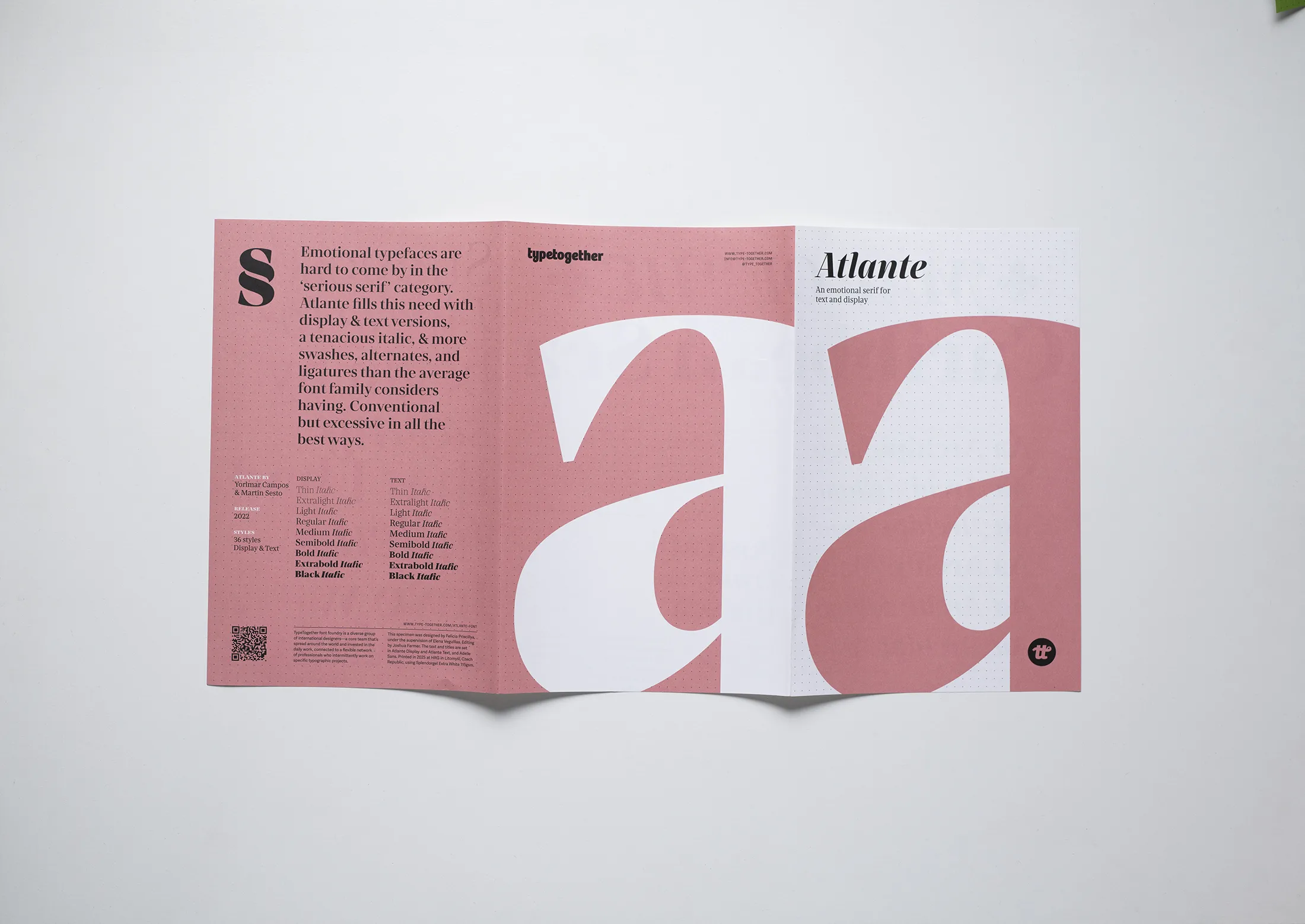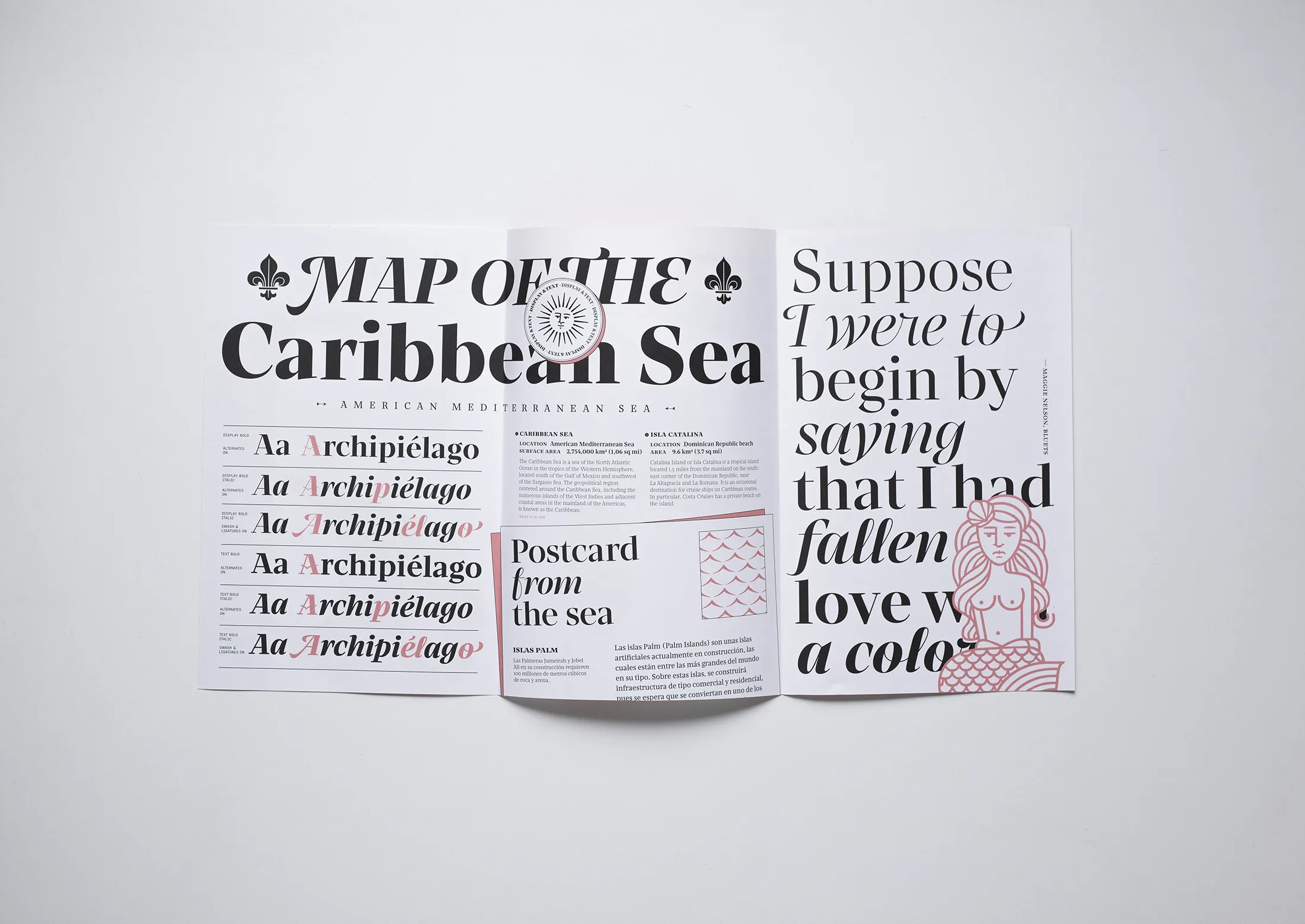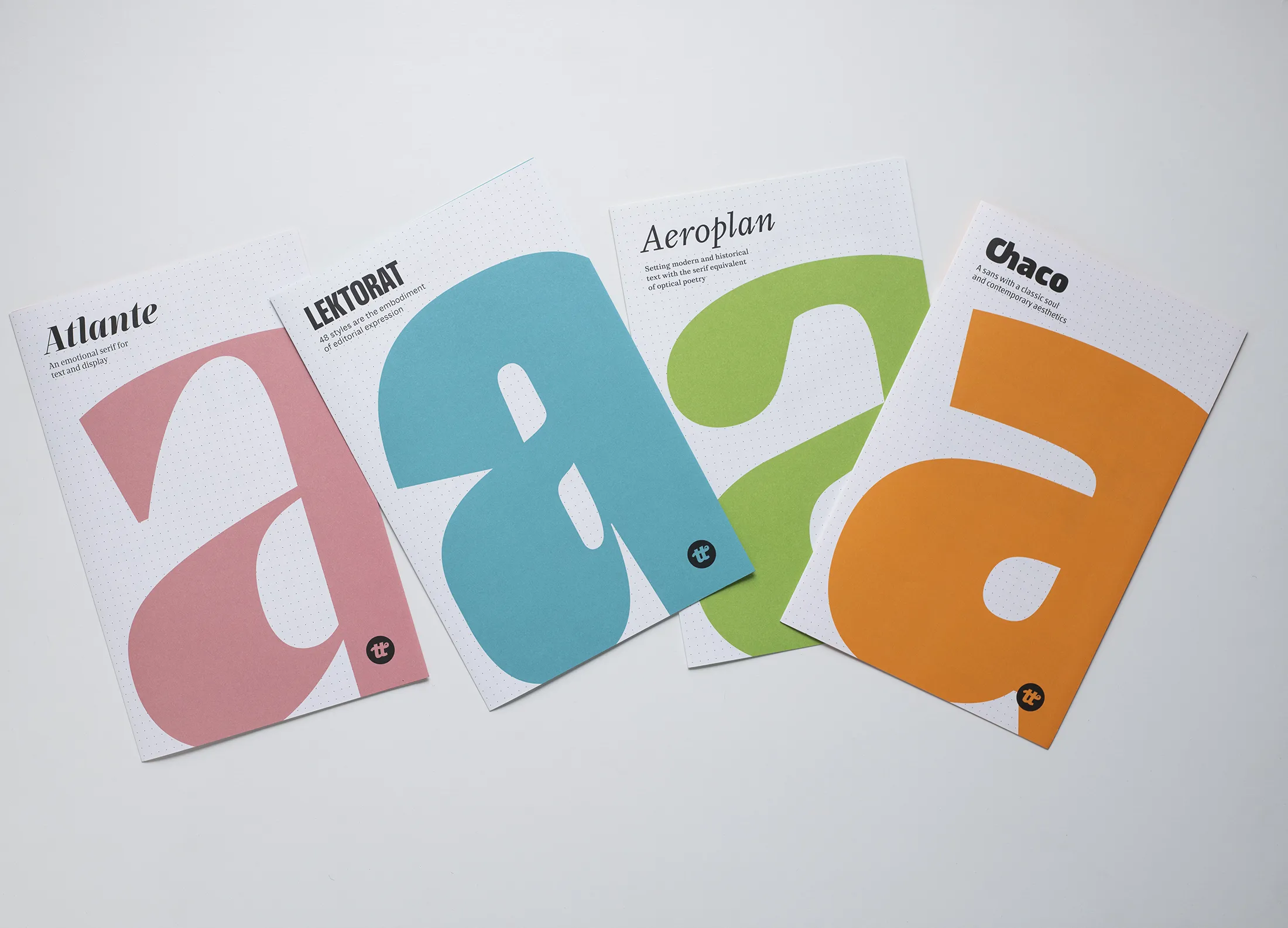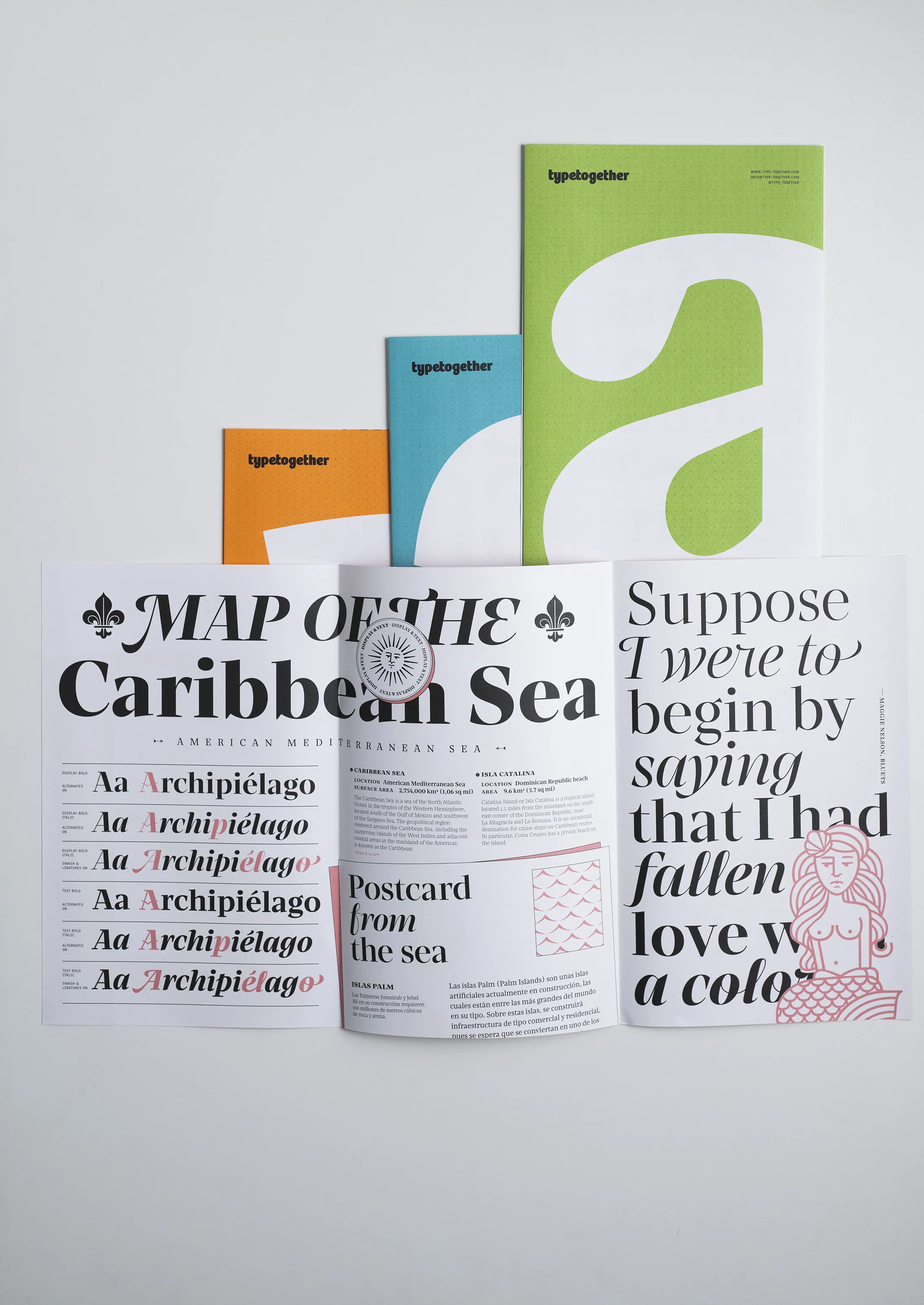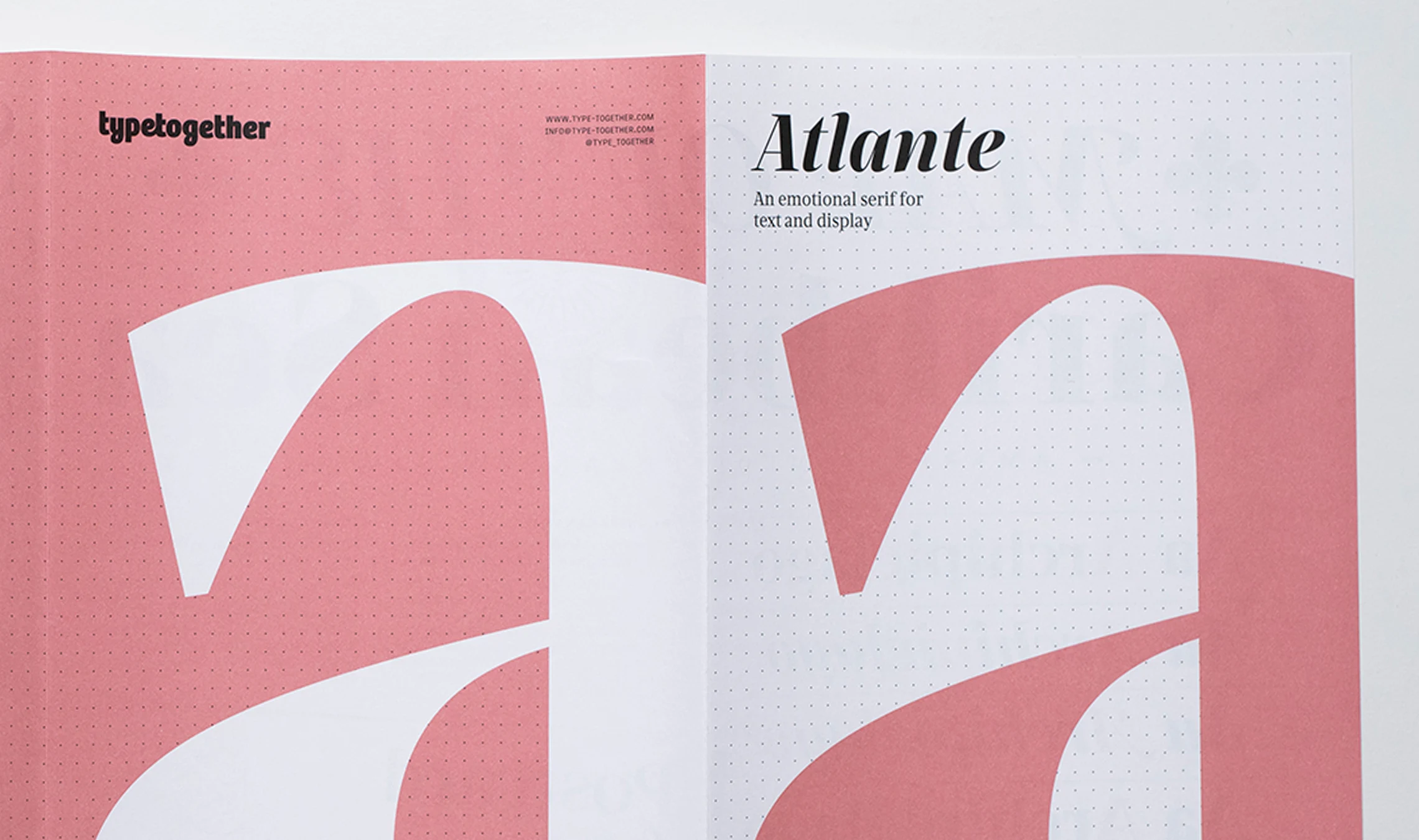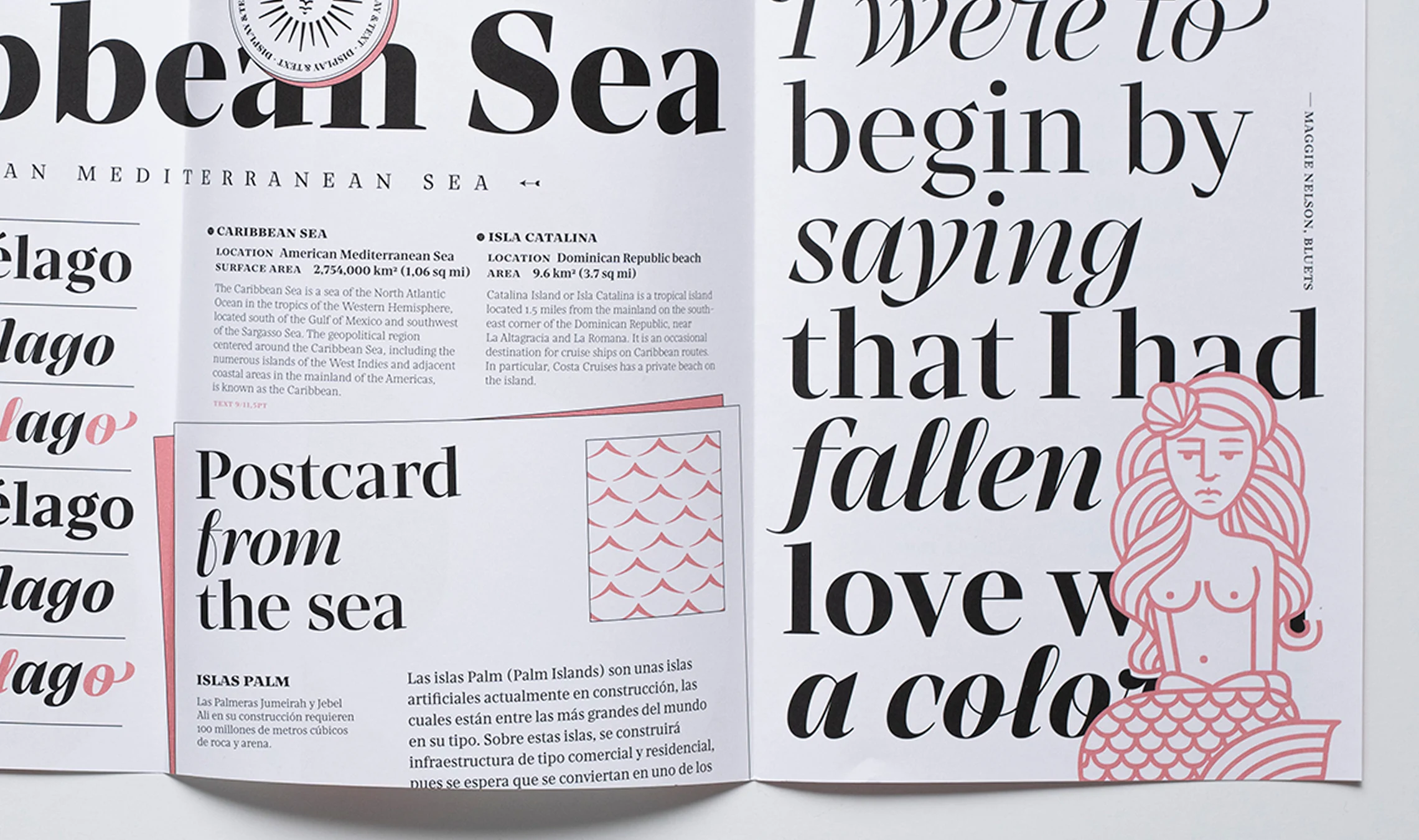
Atlante specimen
To celebrate the release of Atlante — an emotional serif typeface of beautiful excess for text and display, designed by Yorlmar Campos and Martín Sesto our talented graphic designer Felicia Priscillya designed this specimen, under the supervision of Elena Veguillas, now available in our store. Just cover the shipping/handling and the poster is yours for free.